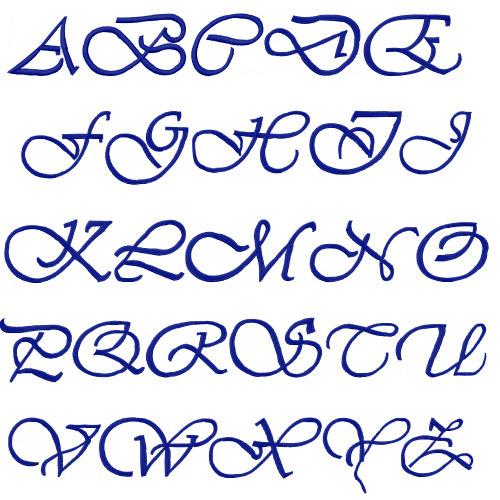
Embroidery Patterns is happy to present Vivaldi machine embroidery font which has Flowing script embroidery font perfect for personalizing items like tote bags and linens. This design features deep blue letters with artistic flourishes. Available in PES, DST & 9 other formats. included. If you would like to view more embroidery fonts and alphabets please search our embroidery fonts page.